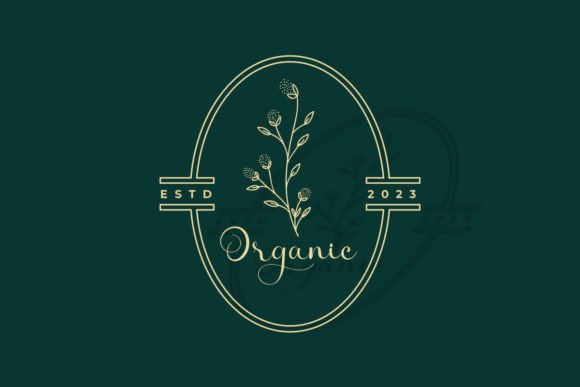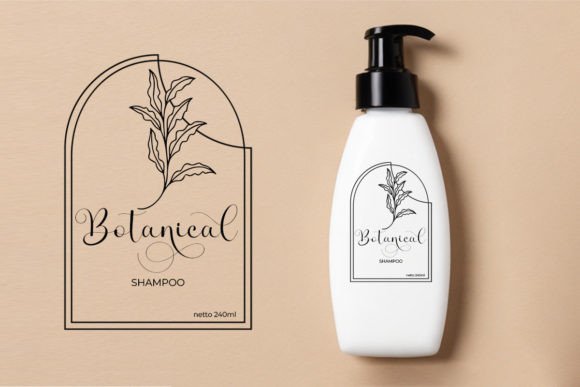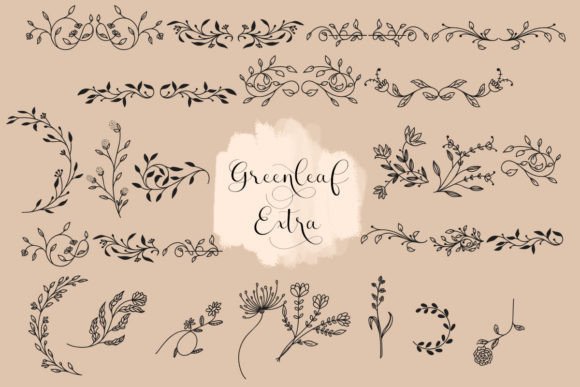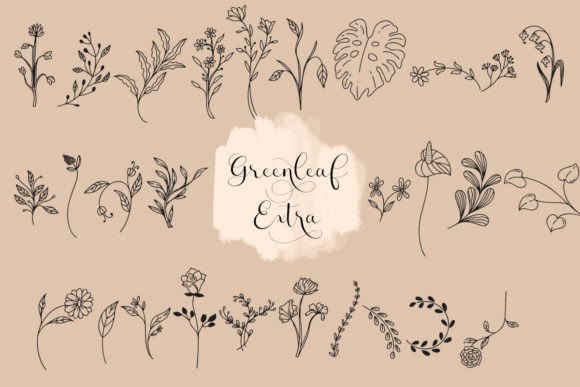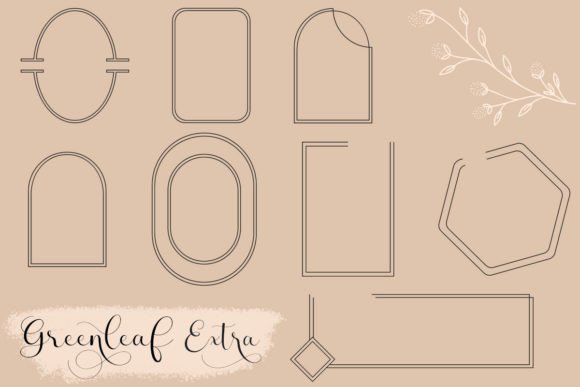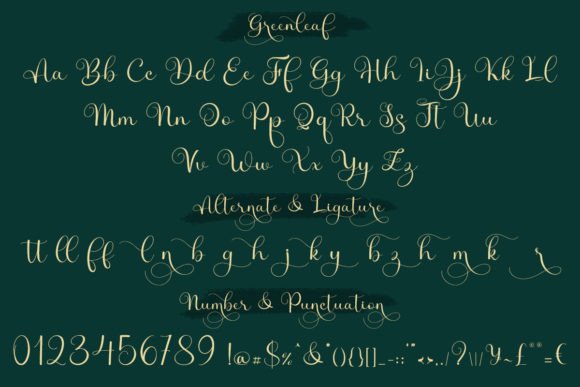
Introducing the Greenleaf Script: Elevate Your Designs with Elegance and Simplicity
In the world of typography, finding the perfect font that combines elegance, simplicity, and a touch of uniqueness can be a daunting task. However, for designers and crafters looking to elevate their projects, the Greenleaf Script font collection is here to transform your creative endeavors. This exquisite collection features two distinct fonts: Greenleaf Regular and Greenleaf Extra, each designed to cater to a wide range of design needs while maintaining a focus on aesthetic appeal and readability.
Greenleaf Regular: The Essence of Versatility and Clarity
Greenleaf Regular is the foundation of the Greenleaf Script font collection, embodying a clean and refined aesthetic that lends itself to a multitude of design projects. Whether you’re working on a branding project, a website, a print design, or any other creative venture, this font’s simplicity and elegance make it an excellent choice. Its straightforward and clear communication style ensures that your message is conveyed effectively, without any distractions. The versatility of Greenleaf Regular means it can adapt to various design contexts, making it a valuable asset in any designer’s toolkit.
Greenleaf Extra: Adding a Touch of Botanical Sophistication
For those looking to add an extra layer of sophistication and natural beauty to their designs, Greenleaf Extra is the perfect solution. Building on the clean lines and elegant feel of Greenleaf Regular, Greenleaf Extra introduces a vast array of exquisite botanical symbols. These symbols are thoughtfully designed to enhance your creations with a touch of uniqueness and visual appeal. From leaves and flowers to more intricate designs, the botanical elements in Greenleaf Extra can be used to create stunning visuals that capture the essence of nature and elegance. This font is ideal for designers and crafters who want to infuse their work with a sense of organic beauty and charm.
The Perfect Combination for Outstanding Designs
The Greenleaf Script font collection offers the best of both worlds, allowing designers to harness the power of elegant typography and stunning botanical elements. With Greenleaf Regular and Greenleaf Extra at your disposal, you can create designs that are not only visually captivating but also convey a sense of simplicity and charm. Whether you’re aiming for a modern look or something more traditional, the flexibility of the Greenleaf Script ensures that your designs stand out in a crowded creative landscape.
Why Choose the Greenleaf Script?
- Elegance and Simplicity: The Greenleaf Script combines elegant typography with simple, clean lines, making it perfect for a wide range of design projects.
- Versatility: With two distinct fonts, designers have the flexibility to choose the right style for their project, whether it’s Greenleaf Regular for straightforward communication or Greenleaf Extra for designs that require a botanical touch.
- Unique Botanical Symbols: Greenleaf Extra offers a wide variety of botanical symbols, allowing designers to add a unique and natural element to their work.
- Enhanced Readability: Both fonts are designed with readability in mind, ensuring that your message is conveyed clearly and effectively.
Incorporating Greenleaf Script into Your Designs
The Greenleaf Script font collection is a valuable resource for designers and crafters seeking to elevate their projects with elegance, simplicity, and a touch of natural beauty. By combining the versatility of Greenleaf Regular with the botanical sophistication of Greenleaf Extra, this font collection offers the perfect solution for a wide range of design needs. Whether you’re creating branding materials, websites, or any other type of design, the Greenleaf Script is sure to enhance your work with its charm and readability.
Discover the creative possibilities with the Greenleaf Script and take your designs to the next level.